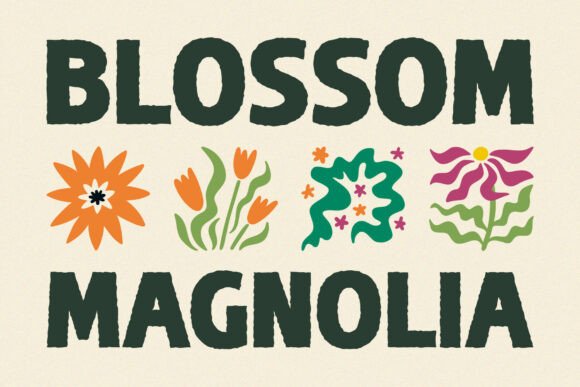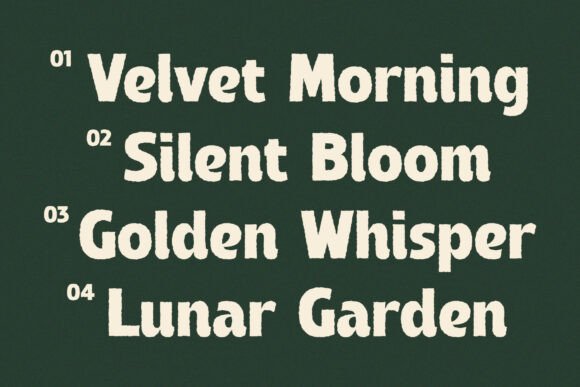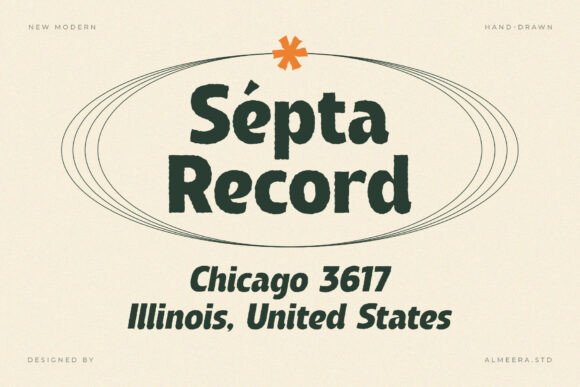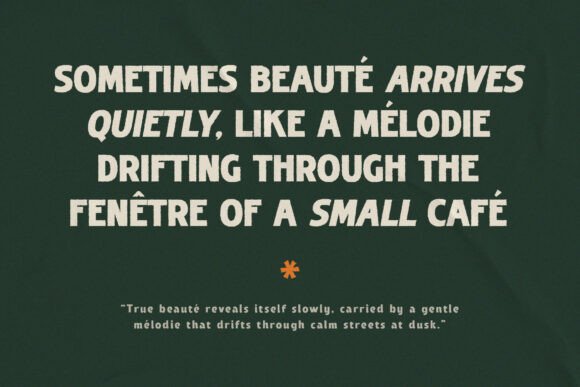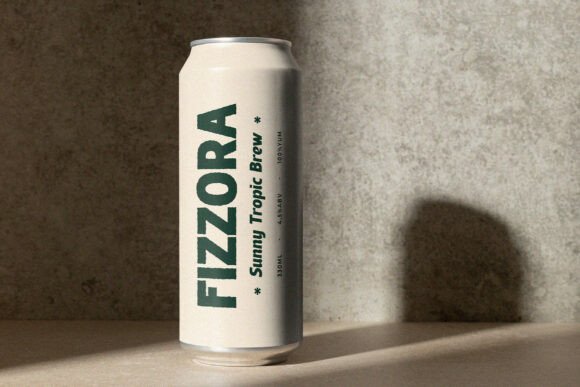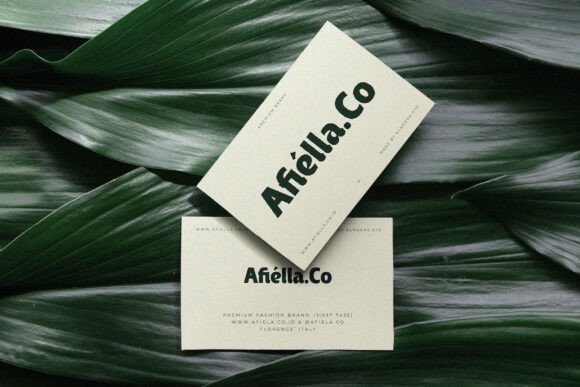
Bonder Font: The Perfect Blend of Warmth and Boldness
In the world of typography, there’s a font that stands out from the rest, wearing its imperfections like badges of honor. Meet Bonder, a chunky, textured hand-drawn display sans that’s making waves in the design community. This font strikes an effective balance between approachable warmth and graphic boldness, making it an excellent choice for designers and crafters looking to add personality to their projects.
The Unique Charm of Bonder
Bonder’s thick strokes and generous weight make it an immediate attention-grabber at large sizes. However, it’s the hand-drawn texture that adds the kind of human detail that keeps eyes engaged on closer inspection. This font doesn’t try to be perfect, and that is its greatest strength. Bonder’s imperfections give it a unique charm that’s hard to find in more polished typefaces.
Perfect for Personality-Driven Projects
Designers will find Bonder invaluable for projects where personality matters more than precision. Whether you’re working on independent café and restaurant branding, craft beverage labels, children’s book publishing, community event posters, eco-conscious packaging, outdoor brands, or editorial illustration, Bonder is the perfect fit. Its playful, yet bold nature makes it an excellent choice for projects that require a touch of whimsy and a lot of character.
Flexibility and Multilingual Support
One of the standout features of Bonder is its alternates, which ensure flexibility and allow designers to experiment with different looks and feels. Additionally, multilingual support broadens its reach, making it an excellent choice for global brands and projects that require support for multiple languages.
The Benefits of Using Bonder
So, what makes Bonder an attractive option for designers and crafters? Here are just a few benefits of using this unique font:
- Instant attention-grabber: Bonder’s thick strokes and generous weight make it perfect for headlines, titles, and other display text.
- Human touch: The hand-drawn texture adds a touch of humanity to your designs, making them more relatable and engaging.
- Flexibility: With alternates and multilingual support, Bonder offers a range of options for designers.
- Personality-driven: Bonder is perfect for projects that require a touch of whimsy and a lot of character.
Tips for Using Bonder Effectively
To get the most out of Bonder, here are a few tips for using it effectively:
- Use it boldly: Bonder is designed to make a statement, so don’t be afraid to use it at large sizes.
- Experiment with alternates: Try out different alternates to find the one that works best for your project.
- Pair it with contrasting fonts: Bonder’s bold nature makes it perfect for pairing with contrasting fonts to create visual interest.
- Don’t overdo it: While Bonder is perfect for display text, it may not be the best choice for body text. Use it sparingly to create a lasting impression.
In conclusion, Bonder is a game-changing font that’s perfect for designers and crafters looking to add personality to their projects. Its unique blend of warmth and boldness makes it an excellent choice for a range of applications, from branding and packaging to editorial illustration and children’s book publishing. With its alternates, multilingual support, and flexibility, Bonder is sure to become a go-to font for designers looking to make a statement.